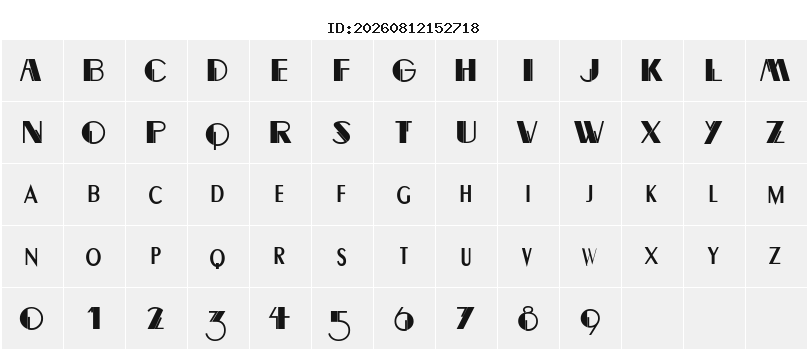
• Font Name: RightBank
• Full Font Name: RightBank
About RightBank.ttf
RightBank.ttf is a modern, elegant sans-serif font designed for ultimate readability and visual harmony. Perfect for branding, headlines, web design, and print materials.